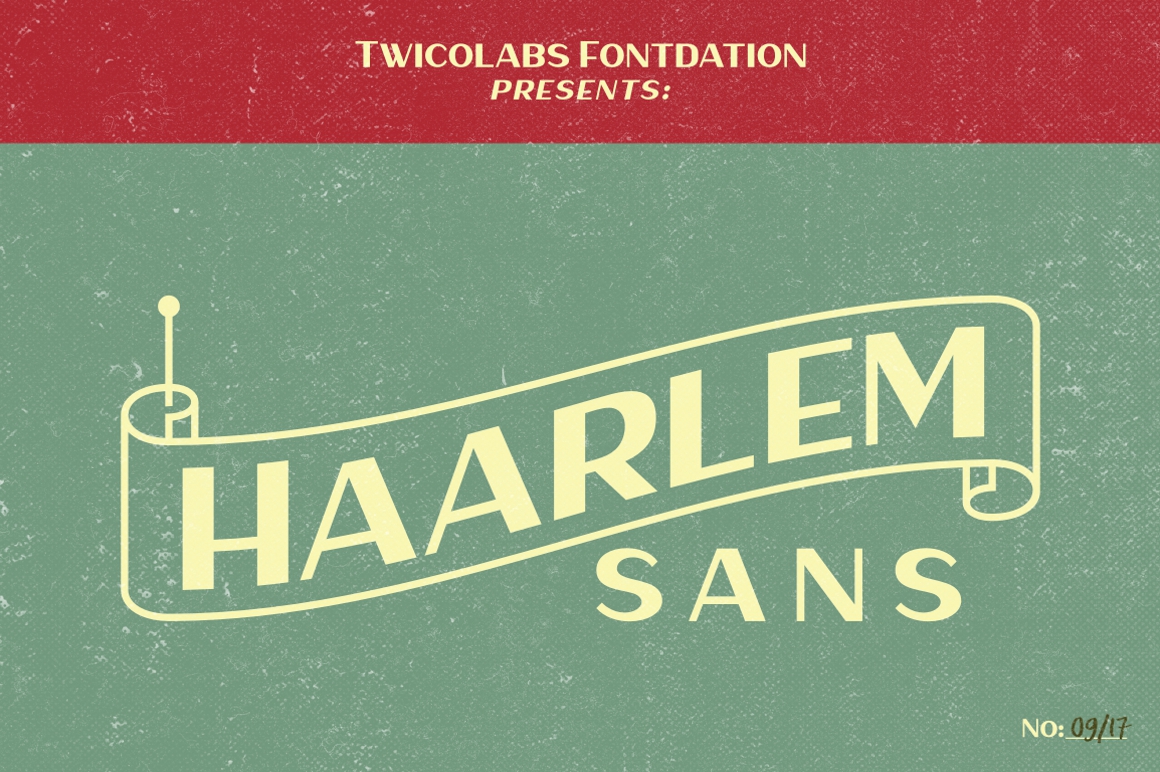
Haarlem Sans
Haarlem Sans Font
Introducing our new font; Haarlem Sans. A wide sans-serif font with a touch of classic and art-deco style. Inspired by the calm and uniqueness of Haarlem town, NL, mixed with the old style letters that are used in vintage advertisements (product packaging, posters, etc). Its bold and wide form makes him (yes, he’s a he) suits best as a space killer. With +250 charactes (plus some alternate characters), this font is a great addition to your designing box! Haarlem Sans also PUA encoded, so you can get the access to special characters thru Character Maps and Font Book, no special software needed.